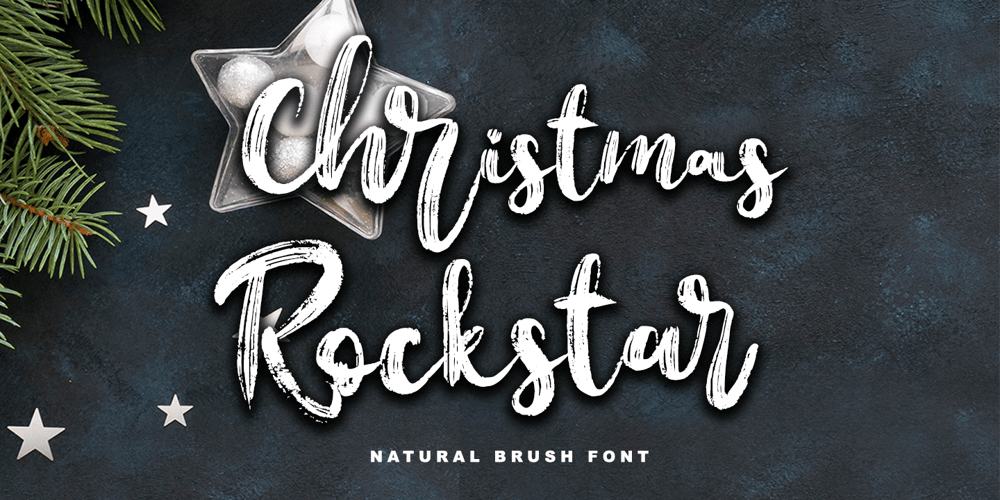
Christmas Rockstar
Christmas Rockstar font
Christmas Rockstar Font Family was designed by Thomas Aradea and published by Letterara. Christmas Rockstar contains 2 styles and family package options. Christmas Rockstar is a handwritten font with a dry brush texture with rough details. This font has been designed to suit a variety of projects such as business branding, Instagram quotes, Christmas greeting, Poster, blog headers, fashion apparel, sports communities, film, photography, hobbies, and much more.This font is PUA encoded which means you can access all of the glyphs and swashes with ease!